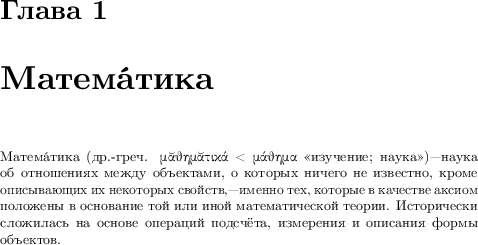
I'm trying to find nice Cyrillic font. Actually I would like to see such beautiful fonts as in tufte-book. My attempt is using following
But still it is far from ideal:
Would you advise me what kind of (Cyrillic) fonts should I use?
Font recommendations would be a bit off-topic here, but I see that you’re limiting yourself to legacy 8-bit fonts. So what I can do is give you a method to use any modern font of your choice.
I don’t know which books or fonts you’re specifically thinking of, but if you have a PDF of the books you’re taking as a model, you can examine it to see which fonts it uses.
Your best bet is to compile with LuaLaTeX and use an OpenType or TrueType font. Try the following template, changing the font and font features as needed:
CMU Serif Sample
If you need mathematical typesetting, \usepackage{unicode-math} instead of fontspec and pick an OpenType math font that matches your text font.
MinionPro and MyriadPro are open-type fonts with latin, cyrillic and greek characters. They are distributed with Adobe Reader, and can easily be used with XeLaTeX or LuaLaTeX, at least as long as no math is involved.